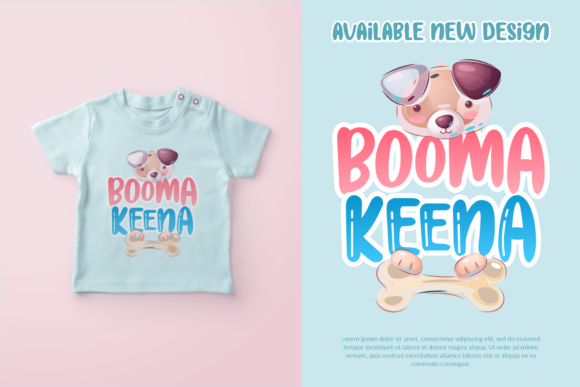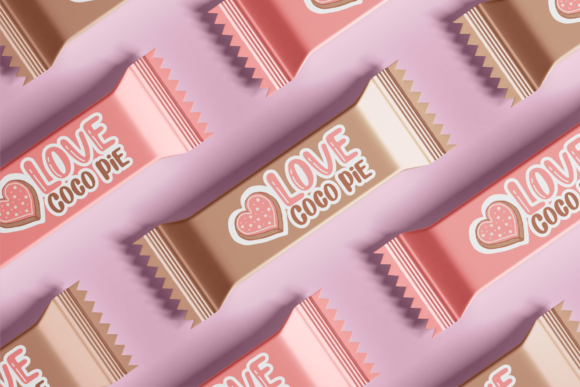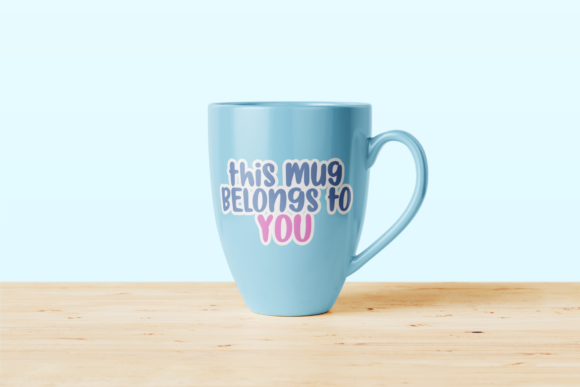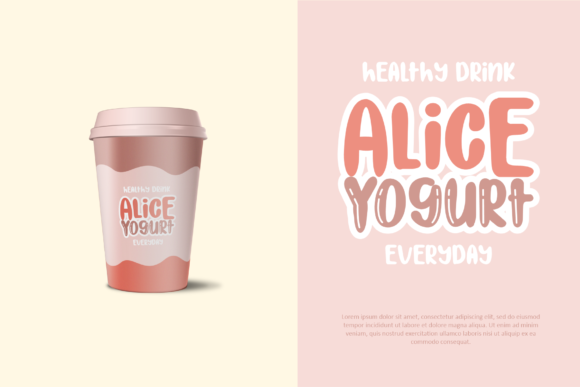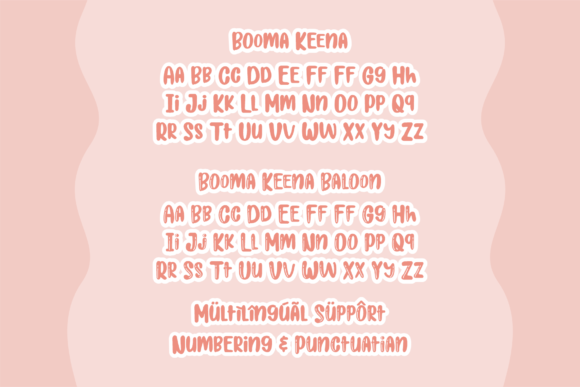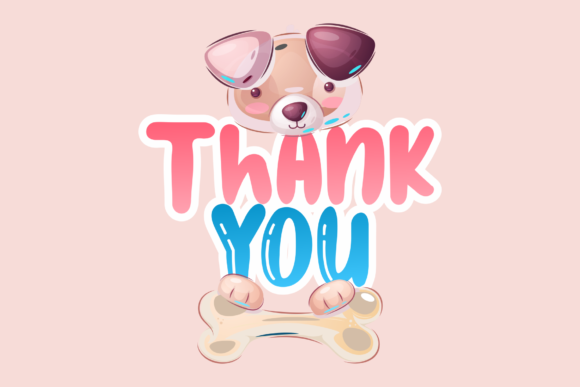
Introduction to Booma Keena Font
Booma Keena is a cute, bubbly and jolly display font.
It embodies playfulness and authenticity and is the perfect choice for any children activity or school project .